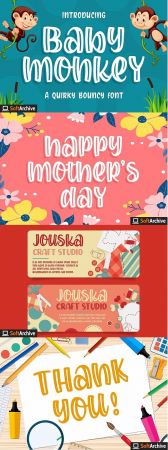
Introducing of our new product the name is Baby Monkey a Quirky Bouncy Font. Baby Monkey inspired by bouncy quirky this font is a fun theme very good for, book cover, poster, t-shirt, quote, logotype, craft and etc
MULTILINGUAL ACCENT :
ØÆøæ¢ÐŒœÁĂÂÀÄĄÅÃǼĆČÇĈĊĎÉĔĚÊËĖÈĘĞĜĢĠĤÍĬÎÏİÌĮĨĴĶĹĽĻĿŃŇŅÑÓŎÔÖÒŐǾÕŔŘŖŚŠŞŜȘŤŢÚŬÛÜÙŰŲŮŨẂŴẄẀÝŶŸỲŹŽŻáăâäàąåãǽćčçĉċďéĕěêëėèęğĝģġĥíîïìįĩĵķĺľļŀńʼnňņñóŏôöòőǿõŕřŗśšşŝșťţŭûüűùųůũẃŵẅẁýŷÿỳźžż